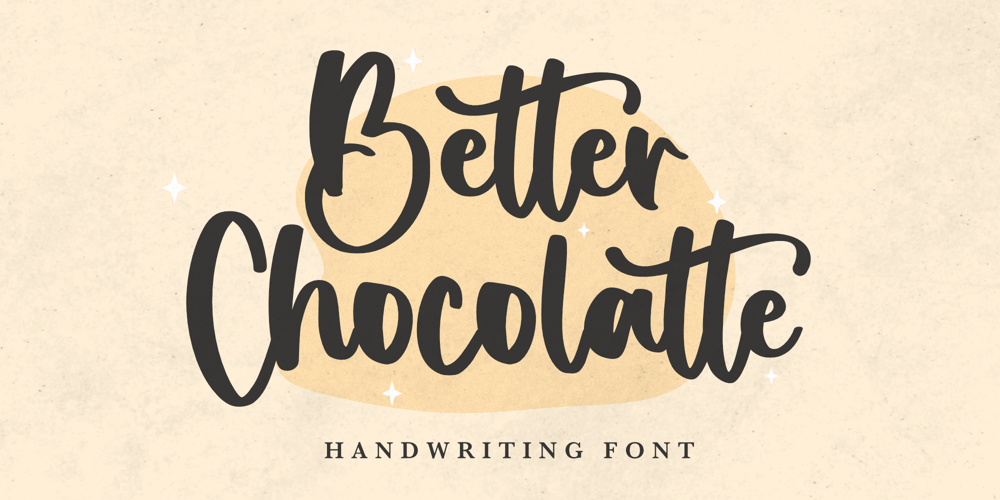
Better Chocolatte
Better Chocolatte font
Better Chocolatte Font Family was designed by Hasna Viola and published by Violatype. Better Chocolatte contains 1 styles and family package options. Introducing, “Better Chocolatte font” is a font with unique and natural handwriting, has a natural curve, so that it makes your design better.“Better Chocolatte font” is perfect for branding logos, invitations, magazines, quotes, crafts, and more, there are standard ligatures in it, which will make your designs even better.